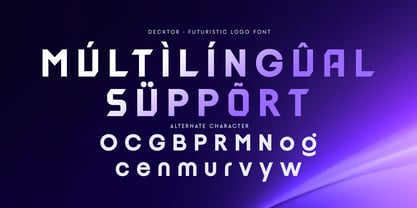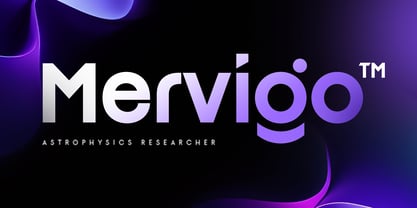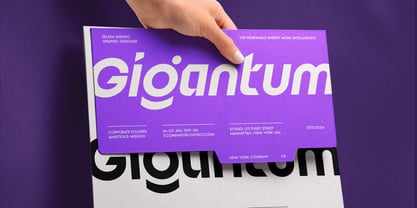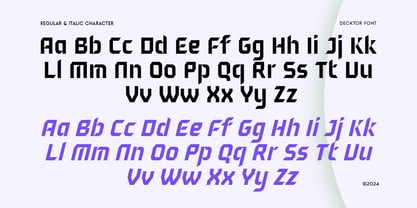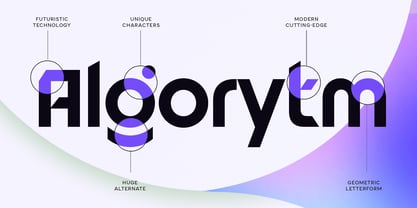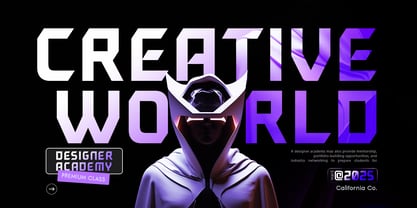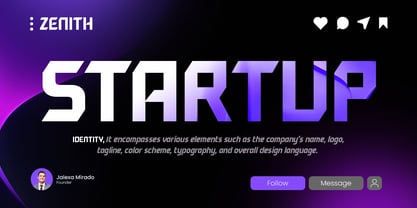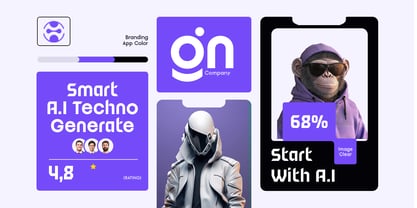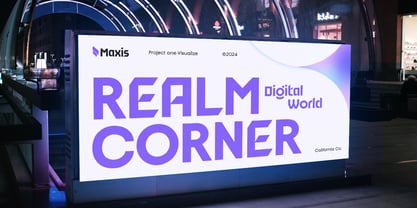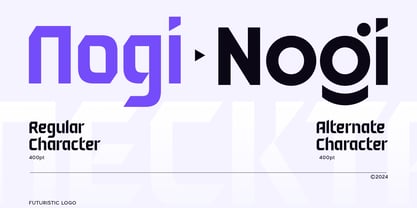
Decktor – Futuristic Logo Font
Decktor is a futuristic logo font that combines sleek, cutting-edge design with bold, impactful letterforms. Perfect for tech startups, digital platforms, and innovative brands, Decktor delivers a high-tech look that will help your logo stand out in the ever-evolving digital world.
Designed with modern aesthetics in mind, Decktor offers a clean and futuristic feel, ideal for creating memorable brand identities in technology, gaming, or digital innovation industries. Its sleek, geometric structure makes it perfect for any forward-thinking project looking to make a strong visual impact.
Decktor – Futuristic Logo Font Features
Sleek, modern letterforms with a futuristic edge
Ideal for tech logos, digital branding, and high-tech projects
Includes uppercase, lowercase, numerals, and punctuation
Clean, bold design with advanced typographic elements
OpenType features for enhanced design flexibility